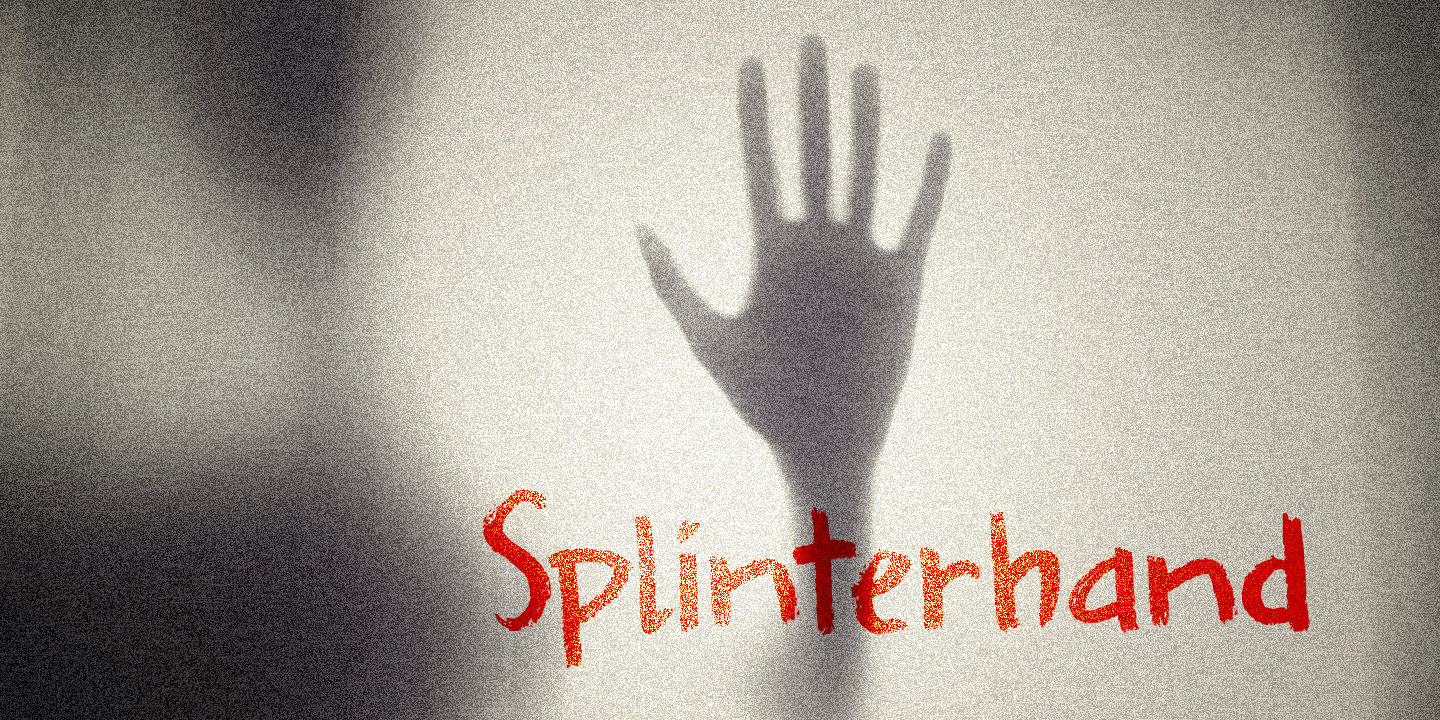
Splinterhand Font is a strikingly raw, textured, and incredibly distinctive typeface, perfect for designs that aim to convey an edgy, distressed, and unpolished aesthetic. Imagine it bringing a gritty, post-apocalyptic vibe to video game titles, adding a fierce, rebellious edge to heavy metal album covers, or giving a unique, distressed feel to urban streetwear branding. It’s an exceptional choice for designing impactful horror movie posters, creating dynamic, grunge-inspired graphics, personalizing alternative music event flyers, and enhancing any project where a sense of rawness, bold texture, and untamed individuality is desired. Its fragmented forms and rough edges make it suitable for anything from dark comic book lettering to protest art, adding an immediate sense of visceral impact.
What makes Splinterhand Font truly exciting is its remarkable ability to combine a powerful, almost aggressive presence with an organic, broken finish. It possesses an inherent tactile quality that feels genuinely damaged or eroded, avoiding the sterile perfection of purely digital fonts. Designers are often drawn to its raw energy and the deliberate imperfections that give each character a unique, fractured appeal. It’s a font that communicates with a sense of urgency, rebellion, and an uncompromising attitude, ensuring your message feels authentic and powerful. Splinterhand Font brings a visceral, unrefined charm to your designs, allowing them to connect with audiences who appreciate bold, unconventional aesthetics.
The Splinterhand Font family typically offers a range of styles and features that enhance its versatility for various creative applications. While specific family members might vary, you can often expect a singular, impactful Regular weight that embodies its signature textured, fractured appearance. Given its specialized nature, Splinterhand Font families might also include variations in the intensity of the distress, alternative characters for stylistic diversity, or even multilingual support to extend its edgy appeal globally. These features enable designers to create highly personalized text, ensuring that Splinterhand Font can adapt to intricate design requirements while maintaining its aggressive, expressive character across various applications and sizes.